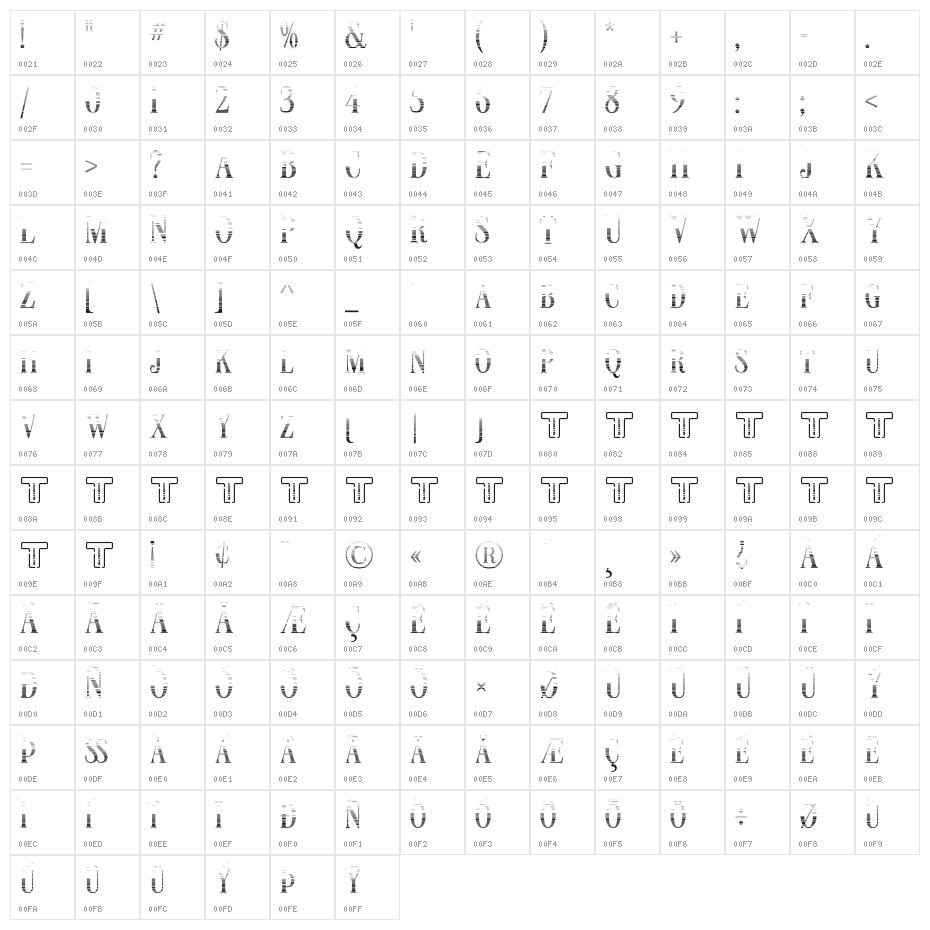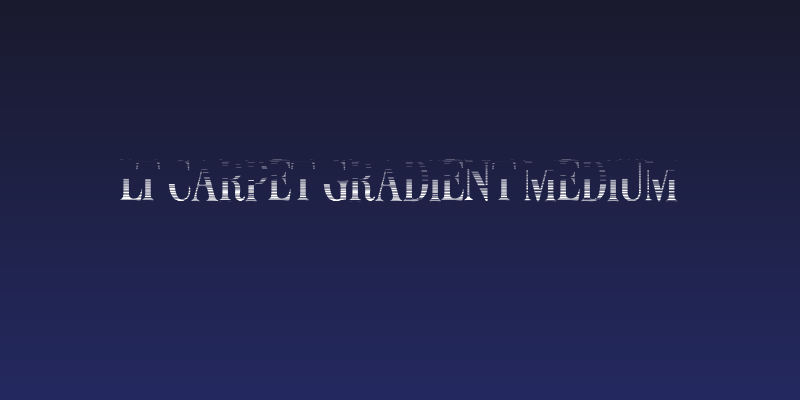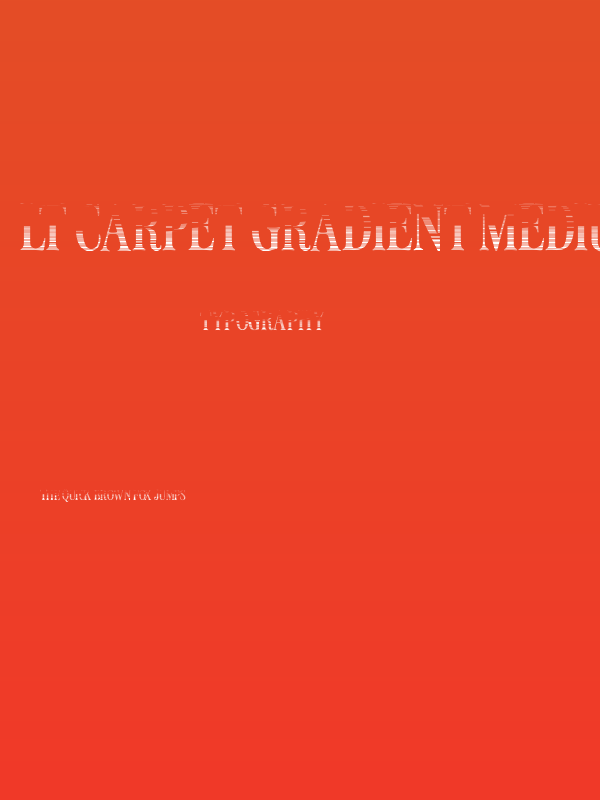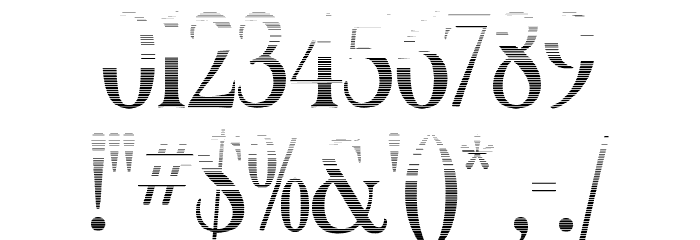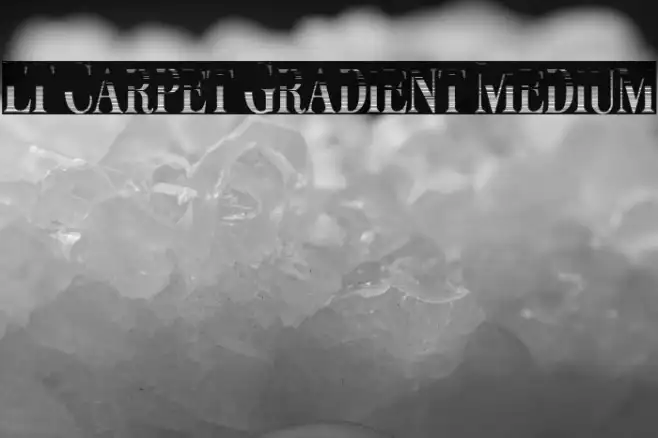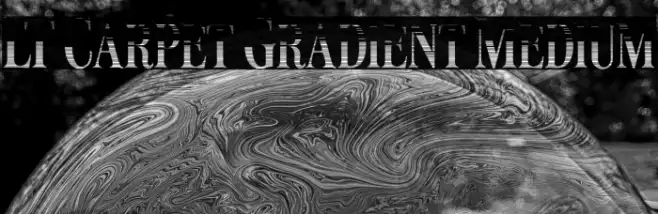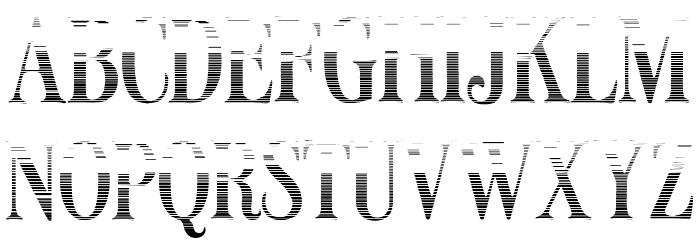
LT Carpet Gradient Medium Font
LT Carpet Gradient Medium Description
This font features a unique gradient effect within each character, creating a visually striking appearance. The uppercase and lowercase letters maintain a consistent style, with a bold and modern look. The characters are well-defined with a slight serif touch, adding a classic element to the overall design. The numbers and special characters are crafted with the same attention to detail, ensuring a cohesive look across all elements. The gradient effect adds depth and dimension, making it suitable for eye-catching designs.
| Proposed Projects | Ideal for branding, poster design, and any project requiring a standout headline or logo. |